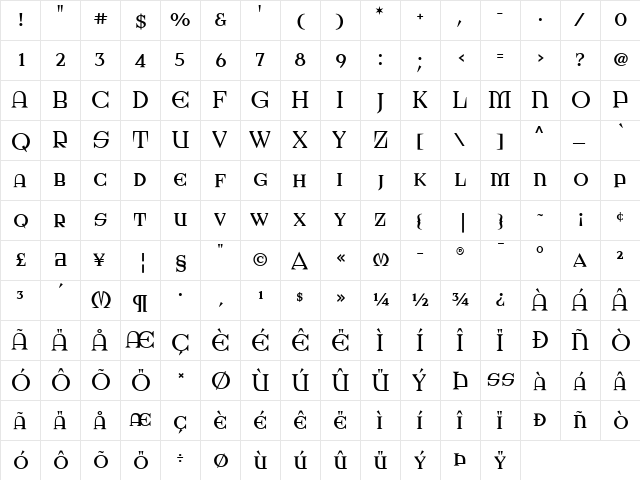
VerandaPosterSG Regular
Design Context for VerandaPosterSG Typeface
VerandaPosterSG is a composed and adaptable typeface that performs quietly and consistently across a wide range of design contexts.
Pro Tip: Use VerandaPosterSG in both headline and body roles to test its range before committing to a single application.